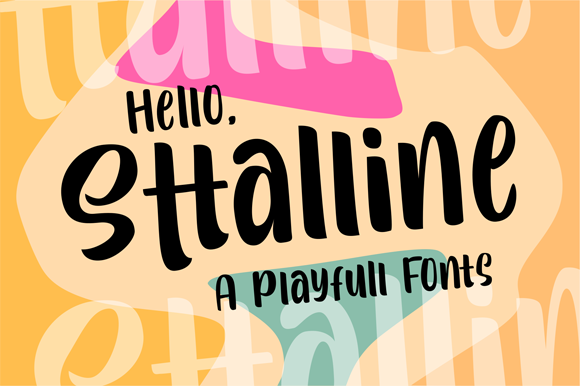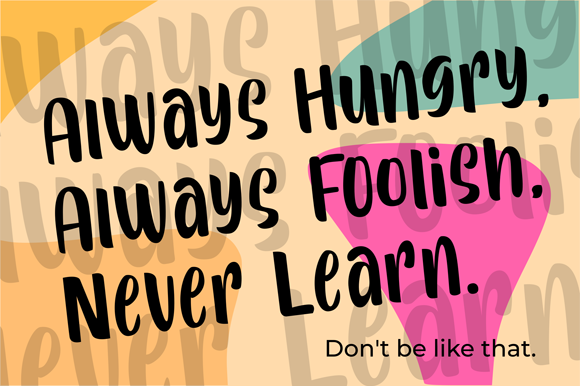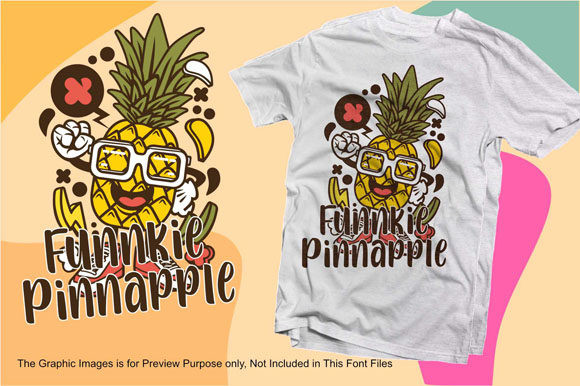
Sttalline Font
Sttalline is a cute and casual decorative font with an incredibly friendly feel. Whether you’re looking for fonts for Instagram or calligraphy scripts for DIY projects, this font will turn any creative idea into a true piece of art!